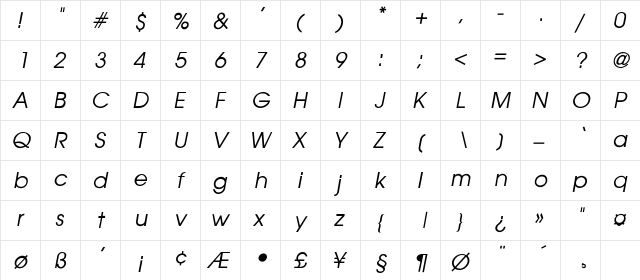
Driscoll-Thin-Italic Regular Font Preview
Design Context for Driscoll-Thin-Italic Typeface
Driscoll-Thin-Italic takes a measured approach to typography — its balanced proportions and neutral character make it a reliable workhorse for both digital and print work. Its italic angle brings a sense of urgency and motion to the letterforms. The delicate stroke weight brings airiness and refinement to layouts.
Pro Tip: Try Driscoll-Thin-Italic for annotation and caption copy alongside an upright companion — the contrast in angle creates a dynamic but ordered typographic system.